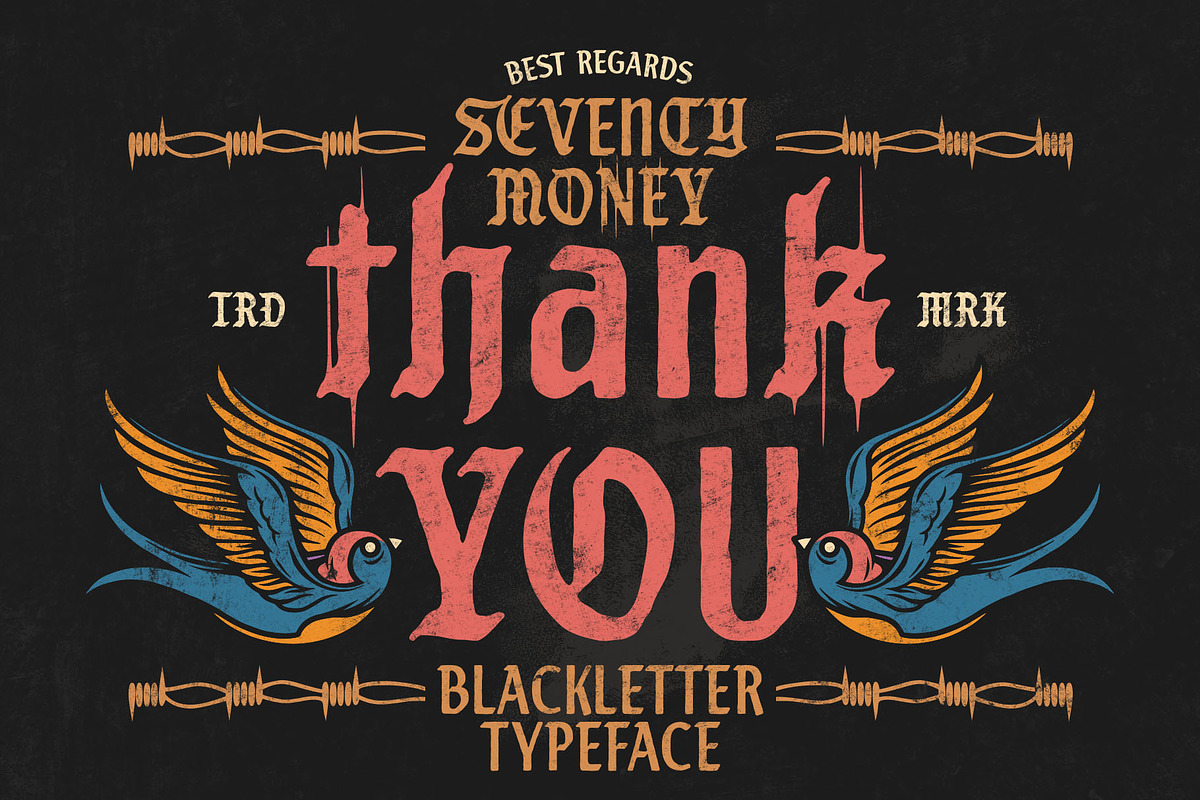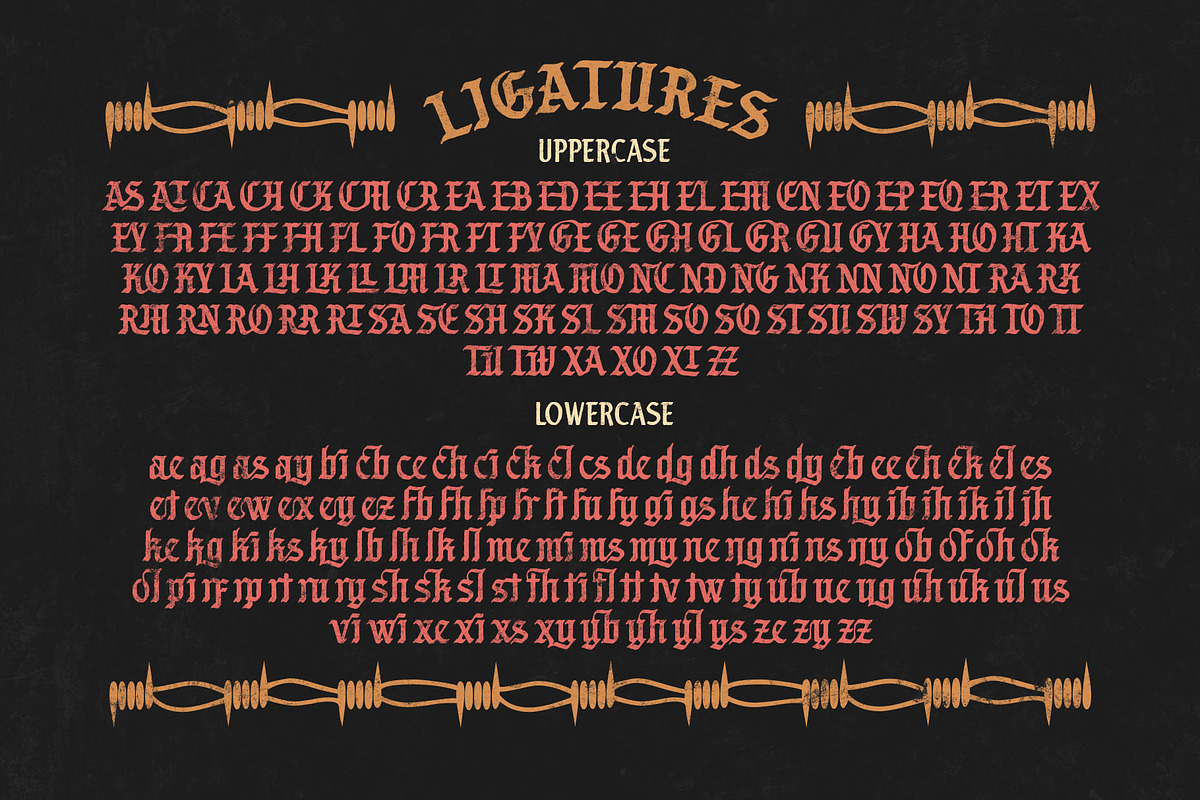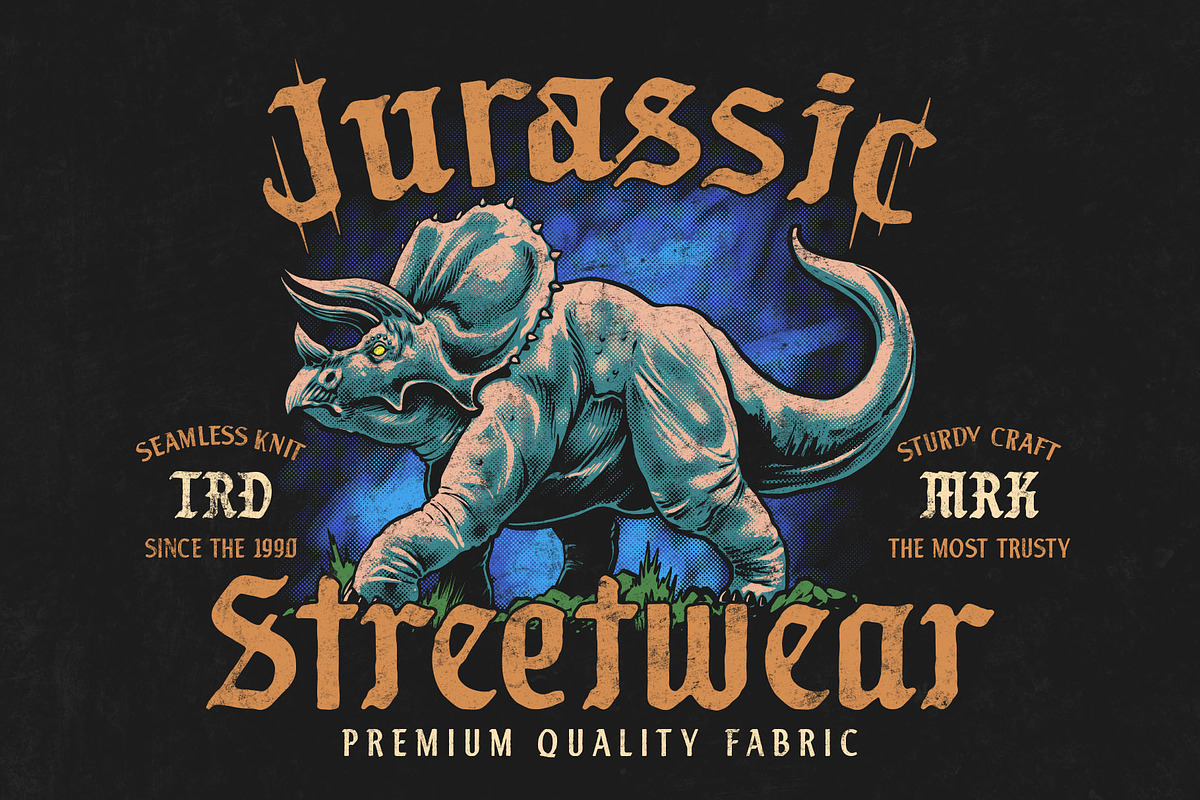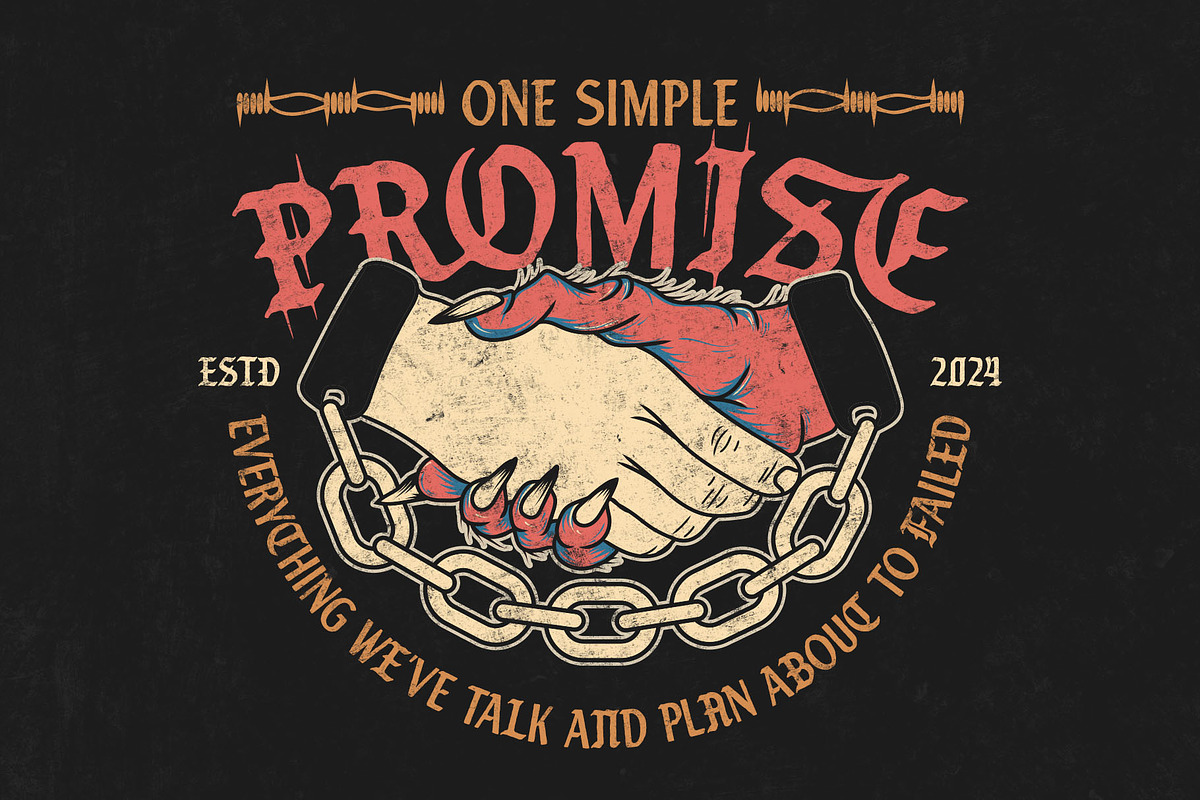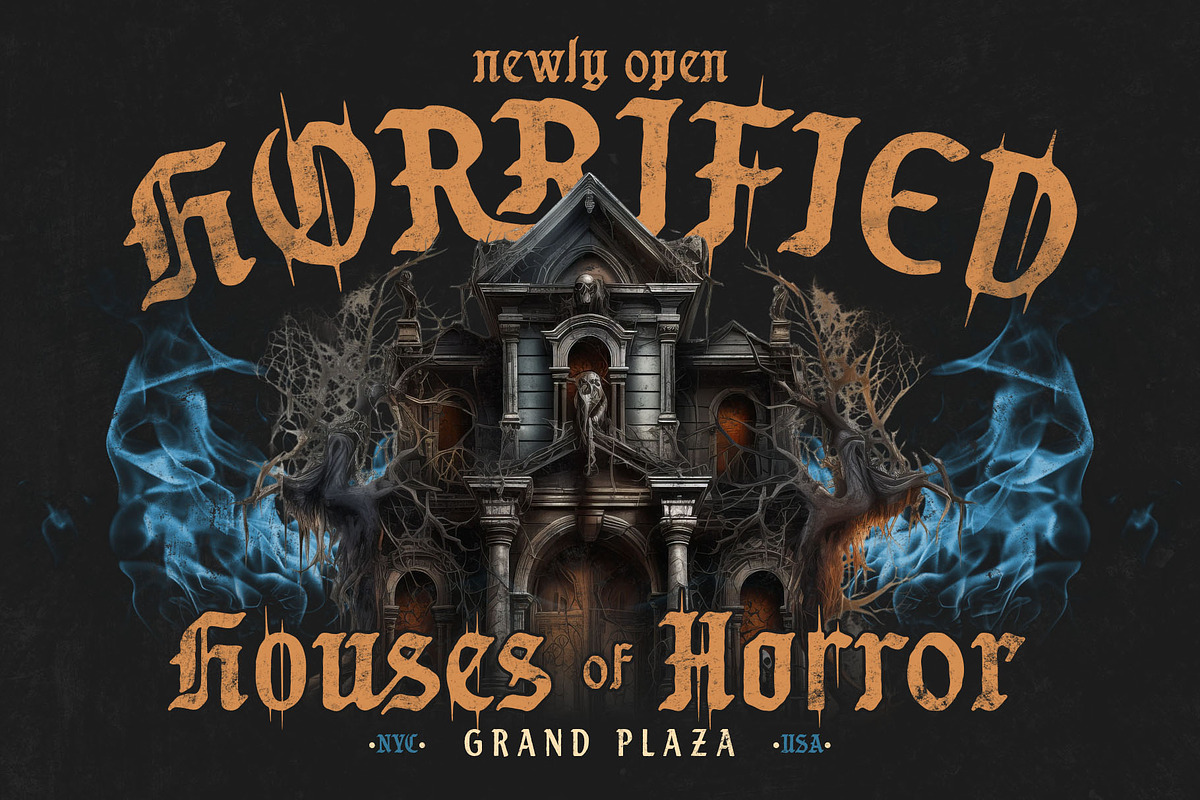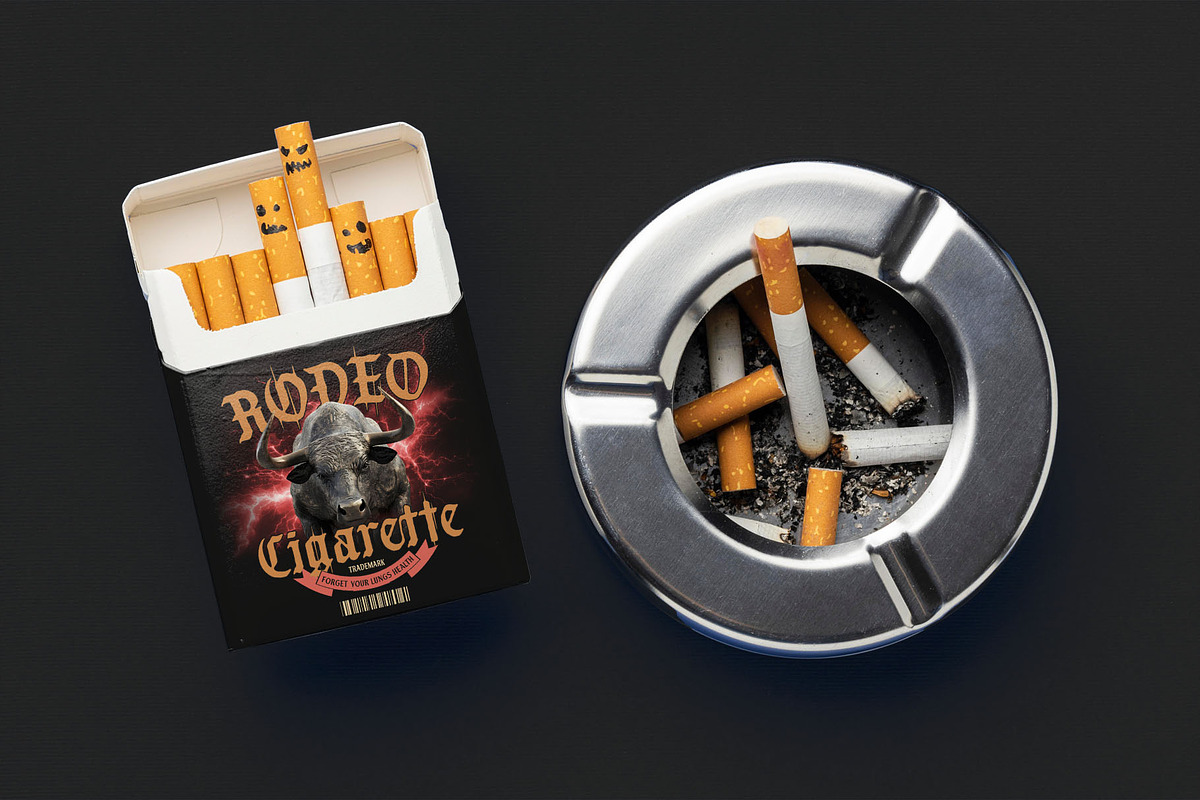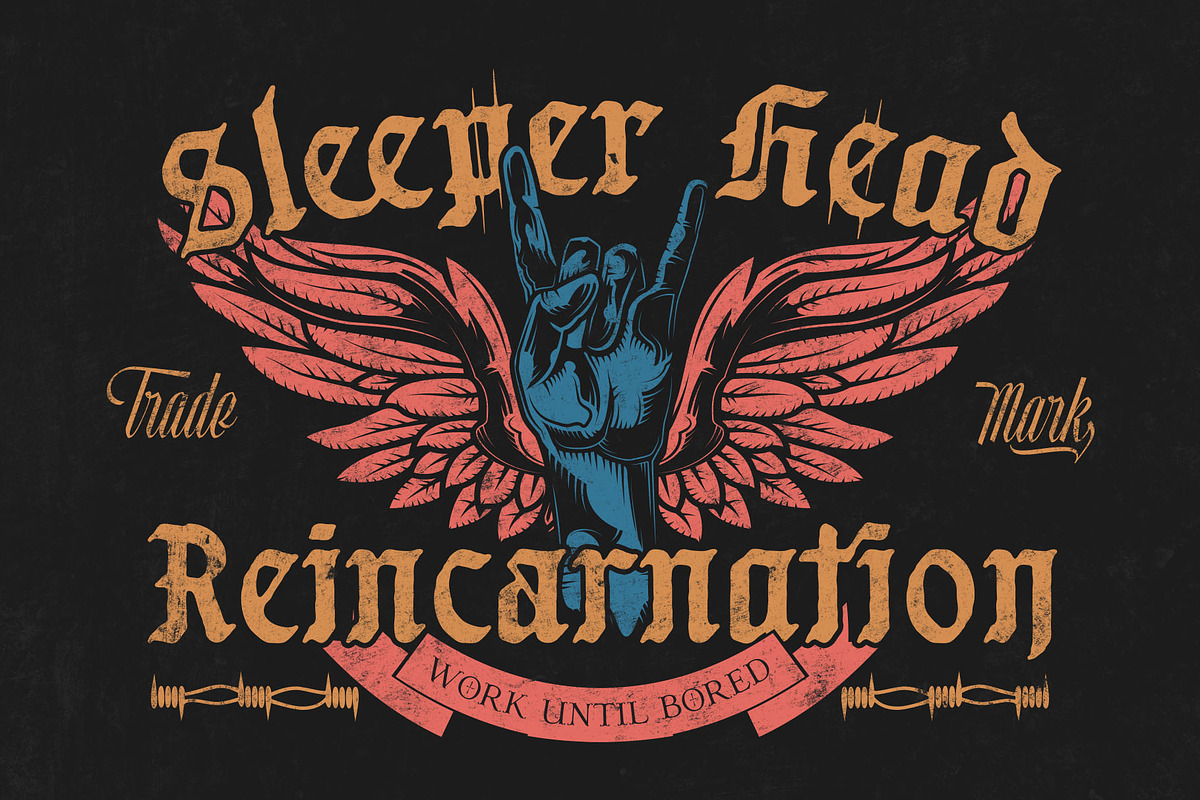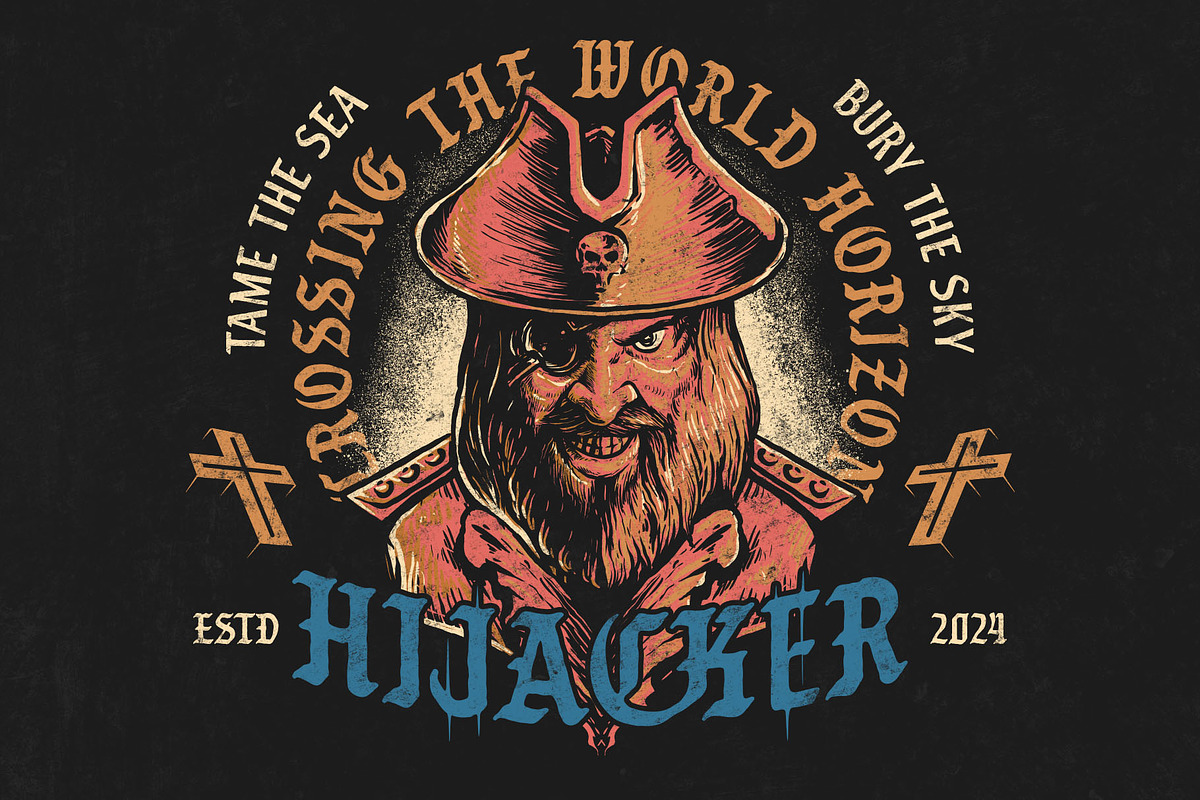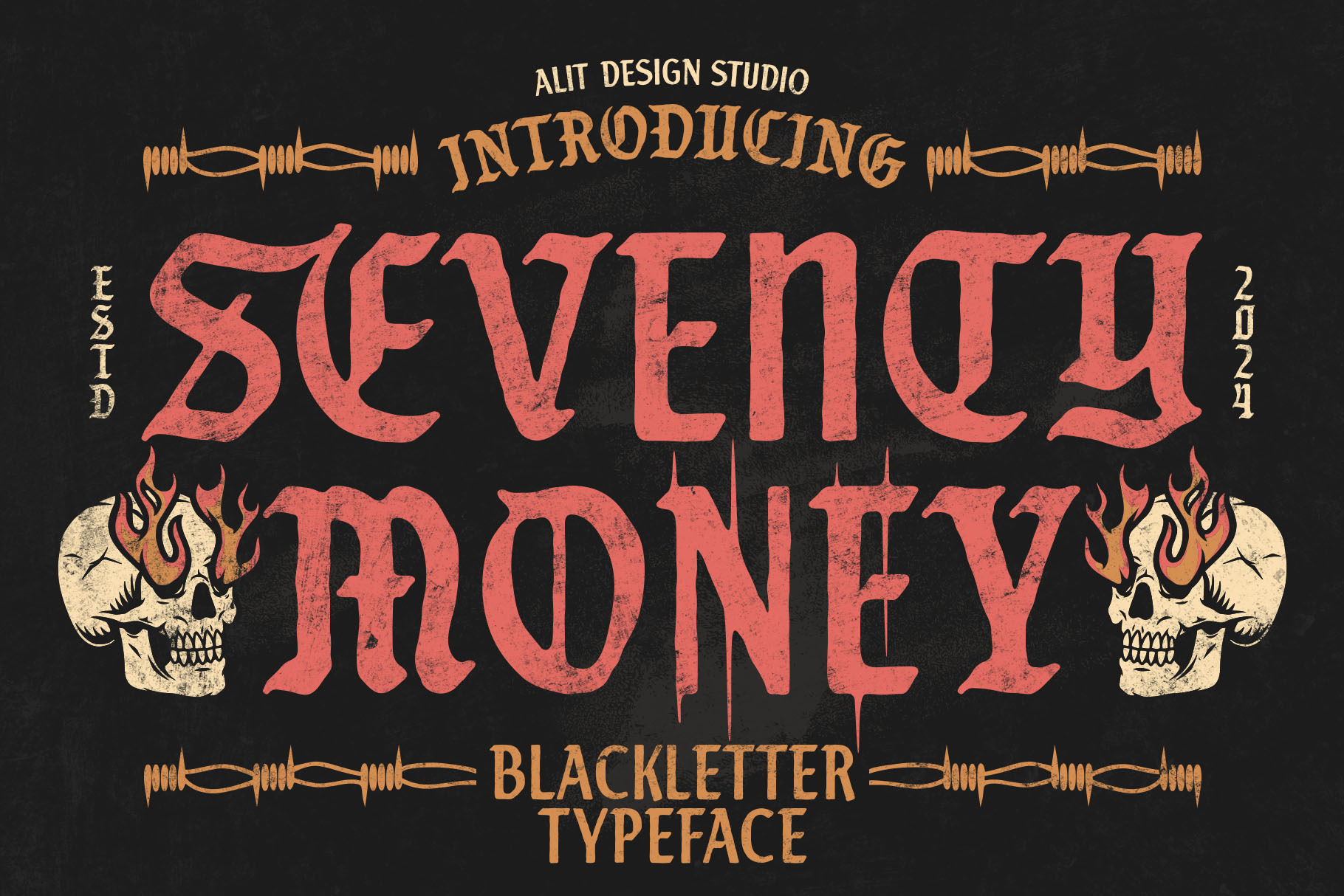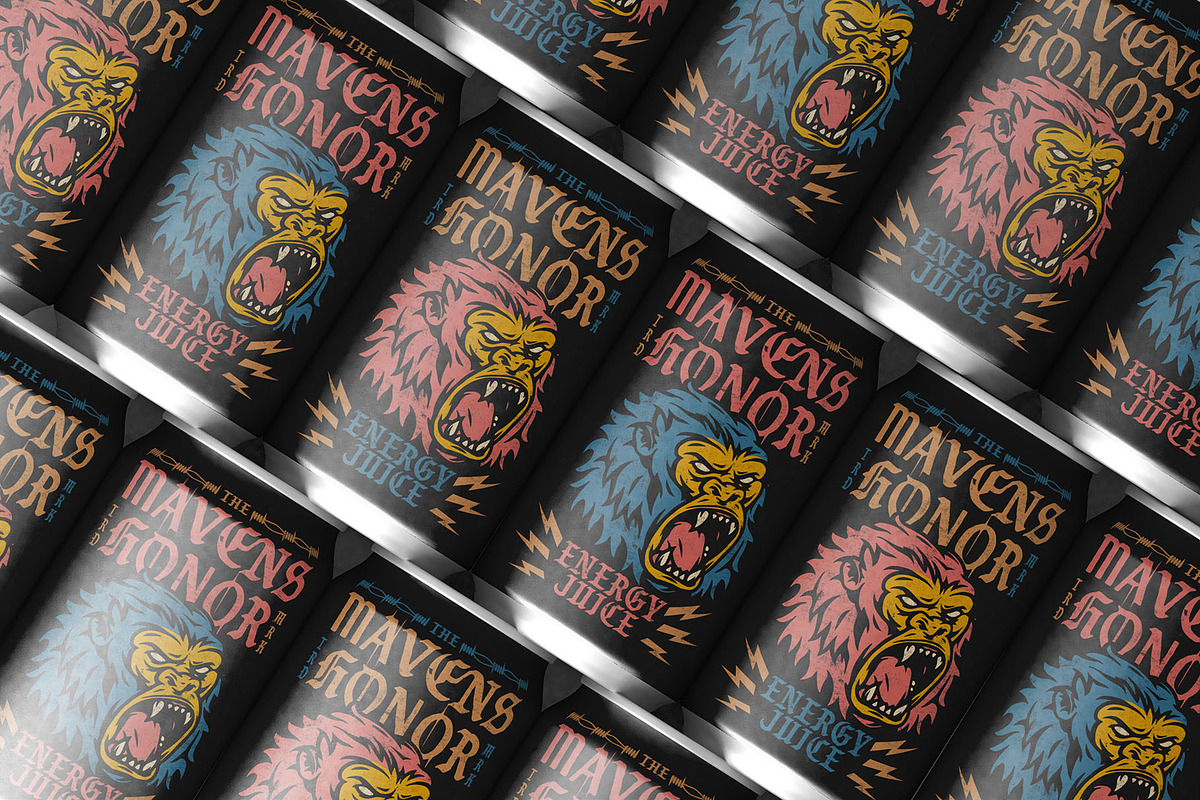
Seventy Money Typeface
The Seventy Money Typeface is a meticulously crafted blackletter font with a rough, vintage edge, designed for projects that demand an impactful, antique feel. This font stands out with its distressed and weathered texture, giving each character the appearance of having been aged through time, as if printed from worn-out woodblocks or metal type. Its intricate design captures the essence of medieval Gothic lettering, but with a contemporary, gritty twist.
- 859 Characters: The expansive character set includes a wide variety of uppercase and lowercase letters, numbers, and punctuation marks, along with symbols and stylistic extras. This rich character count allows for highly flexible design use, from simple titles to complex typographic compositions.
- Alternates: Seventy Money provides multiple alternate versions of many letters, enabling designers to customize the look and feel of their text, adding variety and flair to each composition.
- Ligatures: Unique letter combinations are elegantly merged with ligatures, enhancing the font’s fluidity and providing a handcrafted, calligraphic feel. These ligatures create seamless connections between characters for a more cohesive and natural flow.
- Swashes: Decorative swashes are available, allowing for additional ornamentation, particularly useful for logos, headers, or typographic artwork where extra flair is desired. These swashes enhance the font's medieval, ceremonial look.
- Multilingual Support: Seventy Money supports a wide array of languages, including European alphabets and more. This makes it a versatile tool for global brands, ensuring consistency and readability in multiple languages without sacrificing style.
Design Aesthetic:
With its bold, angular forms and rough, hand-hewn texture, Seventy Money evokes the feeling of centuries-old manuscripts and signage, perfect for designs that require a sense of history, rebellion, or mystique. The vintage blackletter style is ideal for projects like:
- Branding and logo design for edgy or historic-themed businesses.
- Apparel design, particularly for streetwear, gothic, or alternative fashion.
- Posters, flyers, and album covers needing a strong, dramatic typographic presence.
- Packaging for products that emphasize tradition, craftsmanship, or heritage.
Whether you're working on a vintage-themed event, a medieval fantasy project, or simply want to infuse your design with a bold, gothic personality, Seventy Money Typeface offers the versatility and detail to make your text stand out.